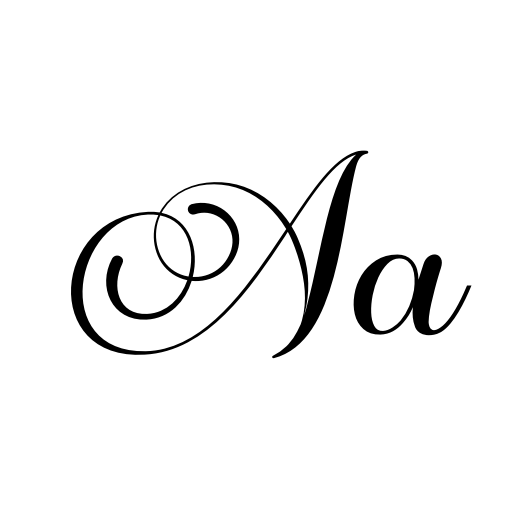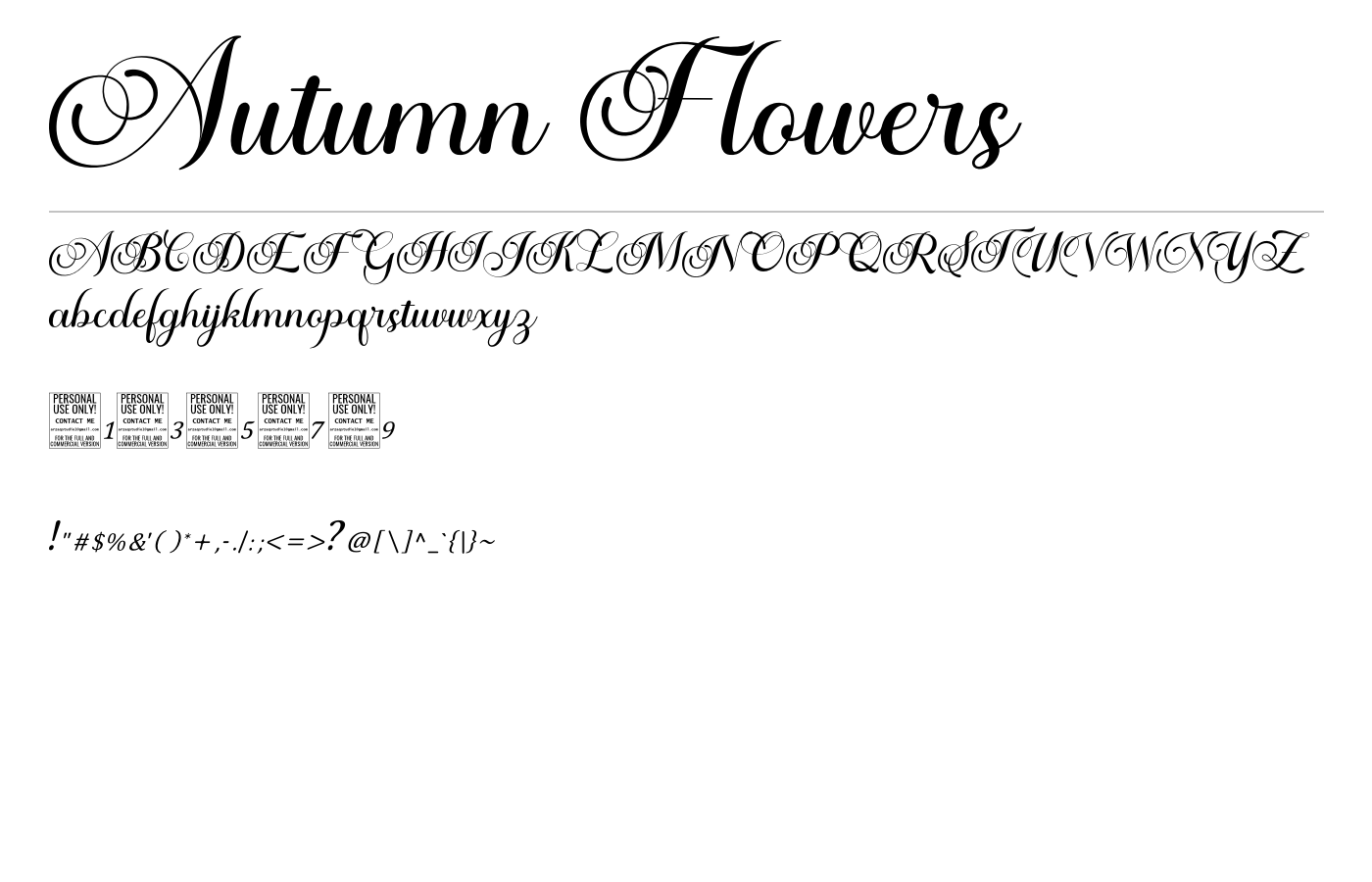
Autumn Flowers is an elegant script font characterized by its delicate, flowing strokes and refined swashes, creating a graceful and romantic feel. Its high contrast between thin and thick lines, combined with decorative uppercase letters and smooth lowercase forms, makes it perfect for luxury branding, wedding invitations, and sophisticated editorial designs. This font excels in headline use where a stylish and expressive touch is desired.
Autumn Flowers Font
About Autumn Flowers Font
| Font family | Autumn Flowers Font |
| Designer | Miftahul Arzaq |